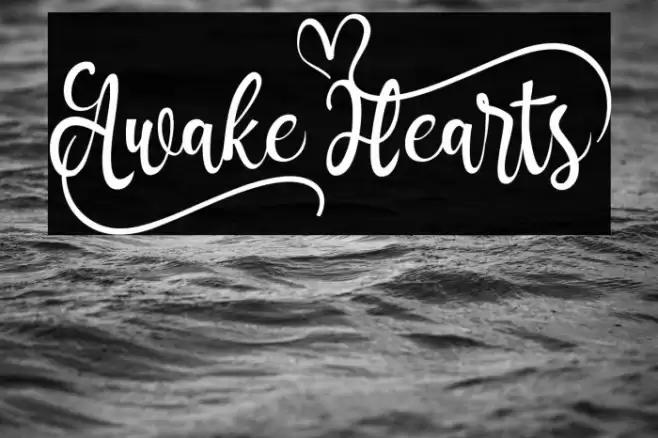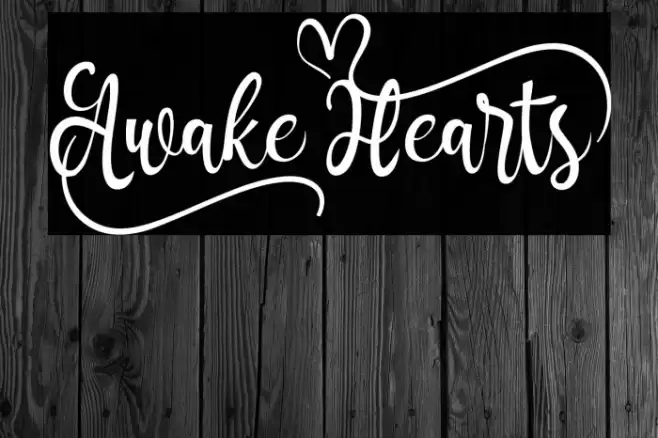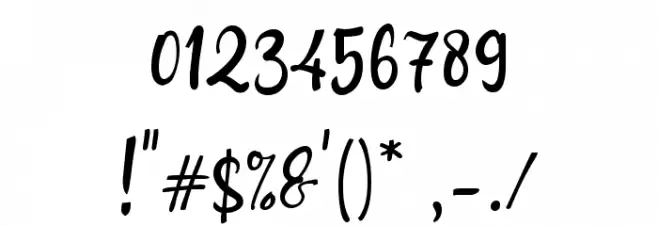
Awake_Hearts` Font
Awake_Hearts` Description
This font features a lively and flowing script style, characterized by its elegant and cursive letterforms. The uppercase letters are bold and expressive, with sweeping curves and loops that give a sense of movement and grace. The lowercase letters maintain a consistent flow, with a slightly more restrained design that complements the uppercase. Numbers and special characters are crafted with the same attention to detail, ensuring a cohesive look across all elements. The overall design is both playful and sophisticated, making it suitable for a variety of creative projects.
A lively and flowing script font with elegant, cursive letterforms from Uncategorized fonts.